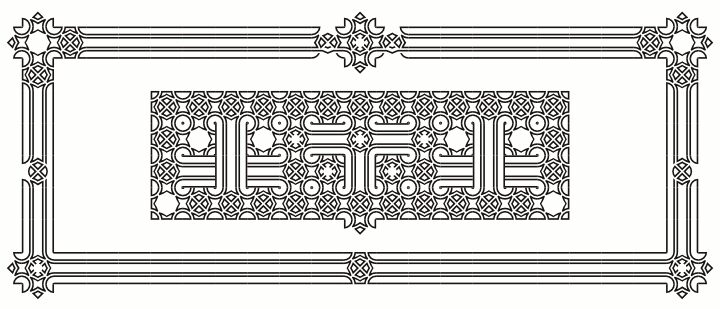
Opattfram01, an intricate dingbat font designed by gluk, exudes a visually arresting and versatile aesthetic. Its geometric patterns and bold, abstract shapes evoke a sense of timeless elegance, making it a captivating choice for a wide range of design applications. From editorial layouts and branding to packaging and digital interfaces, Opattfram01's distinctive character can add a touch of refined sophistication to any project.
Its seamless integration of form and function allows designers to explore the interplay between the functional and the decorative, crafting visuals that captivate and inspire.